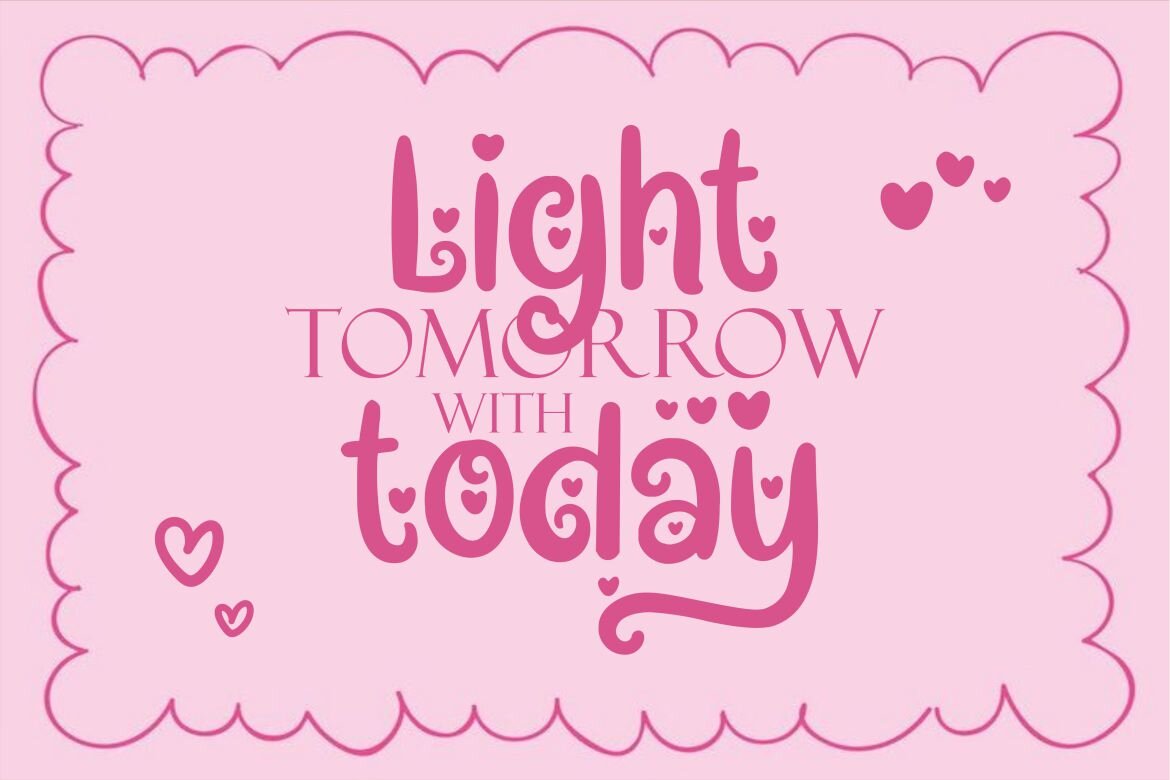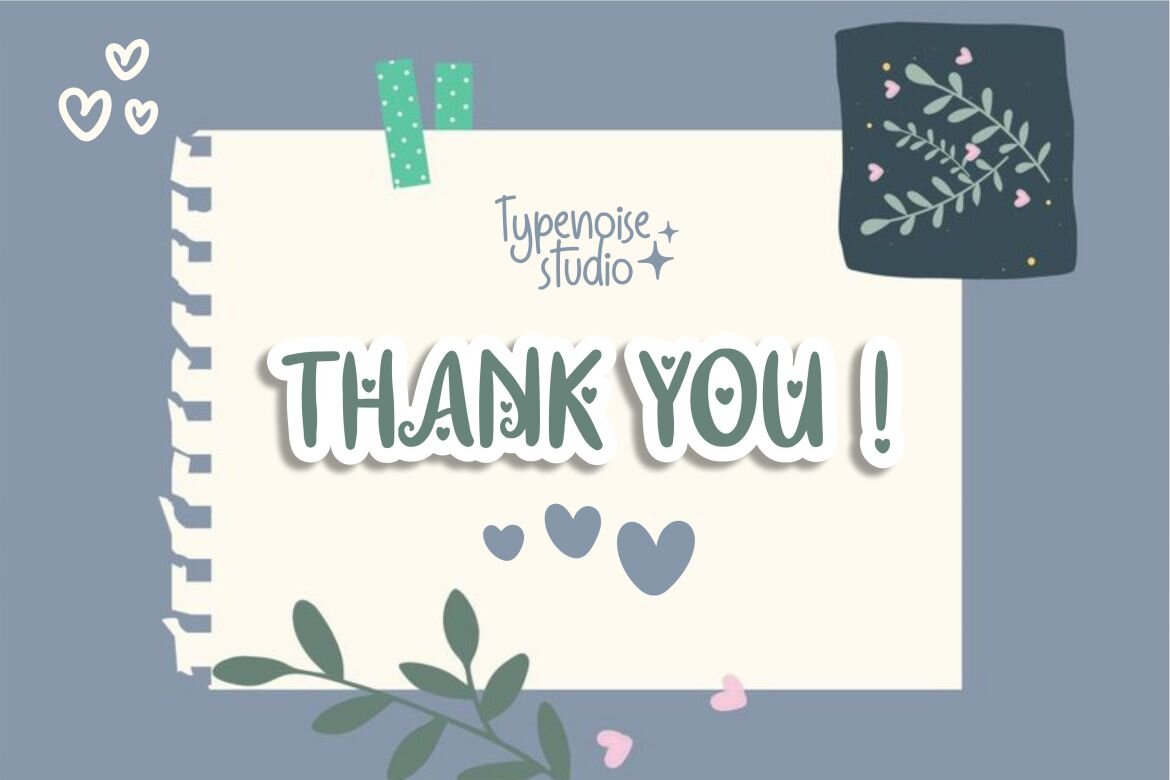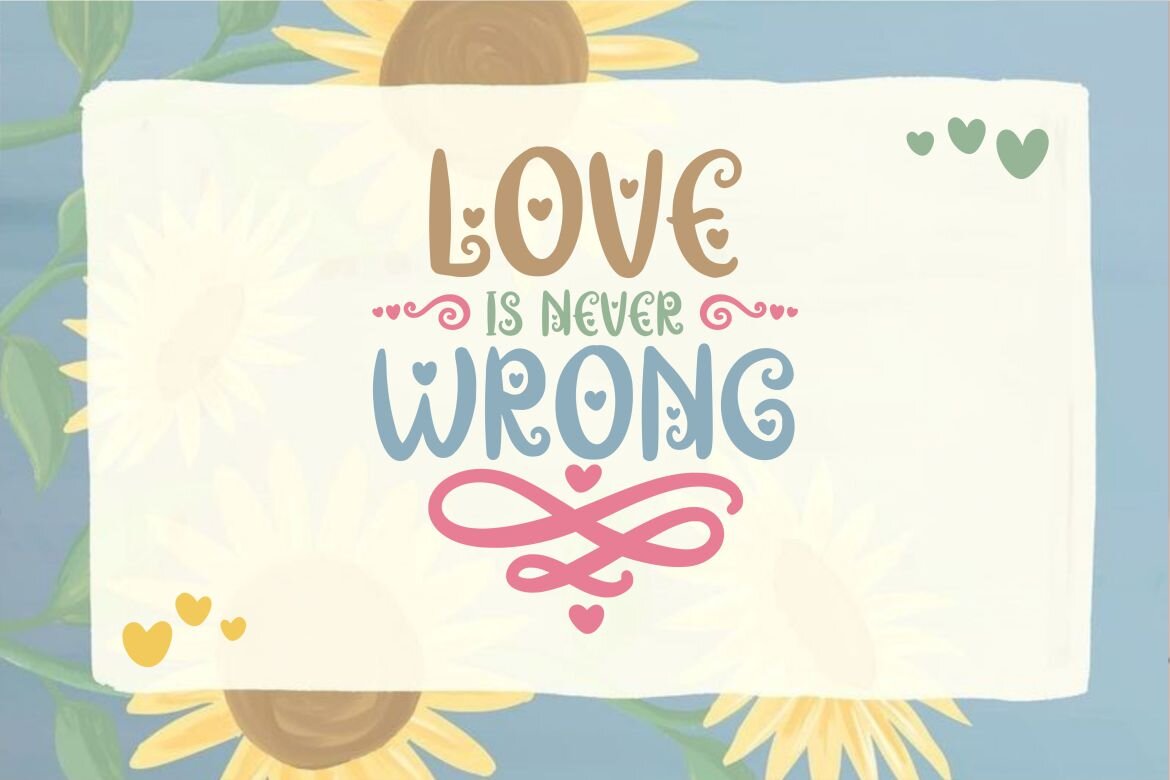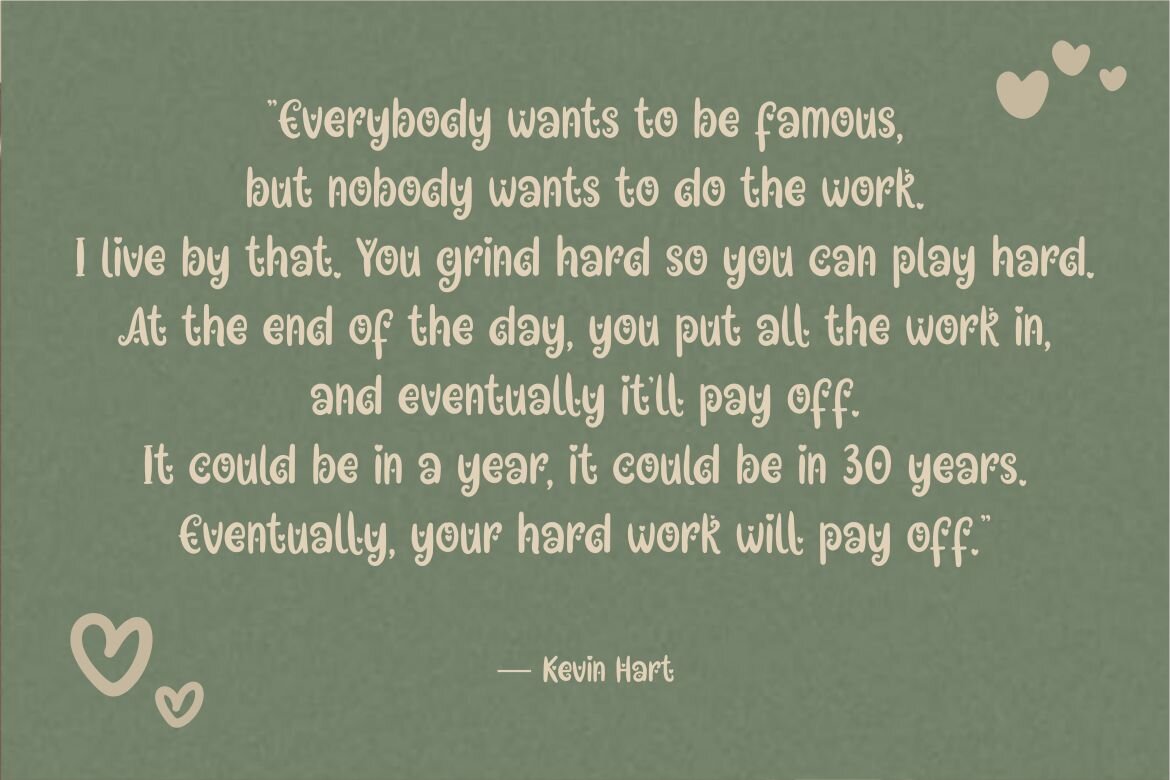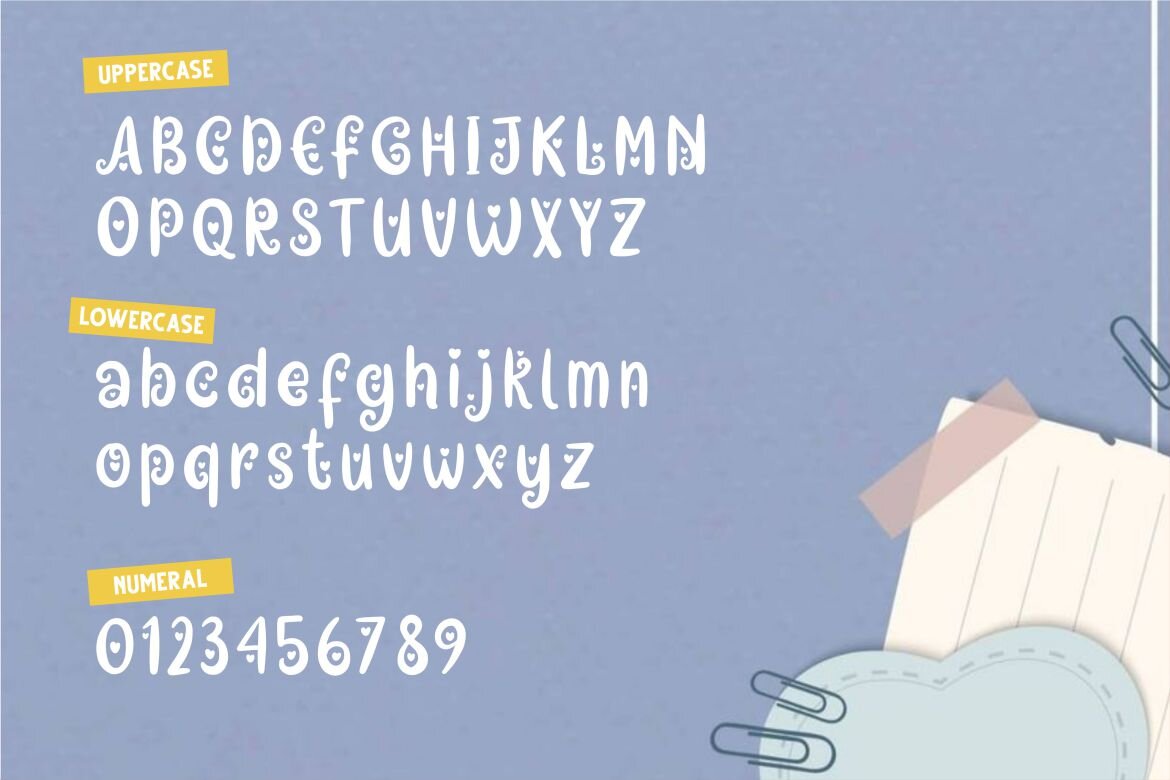
Dephilla Star FREE Font
Dephilla Star
Dephilla Star is a cute decorative font that brings a sense of joy to any project. With its playful demeanor and decorative handwritten appearance, this font is sure to captivate audiences and add a touch of magic to your designs. Whether used for children’s books, branding, invitations, or social media graphics, Dephilla Star invites viewers to embrace their imagination and experience the enchantment of handwritten script.